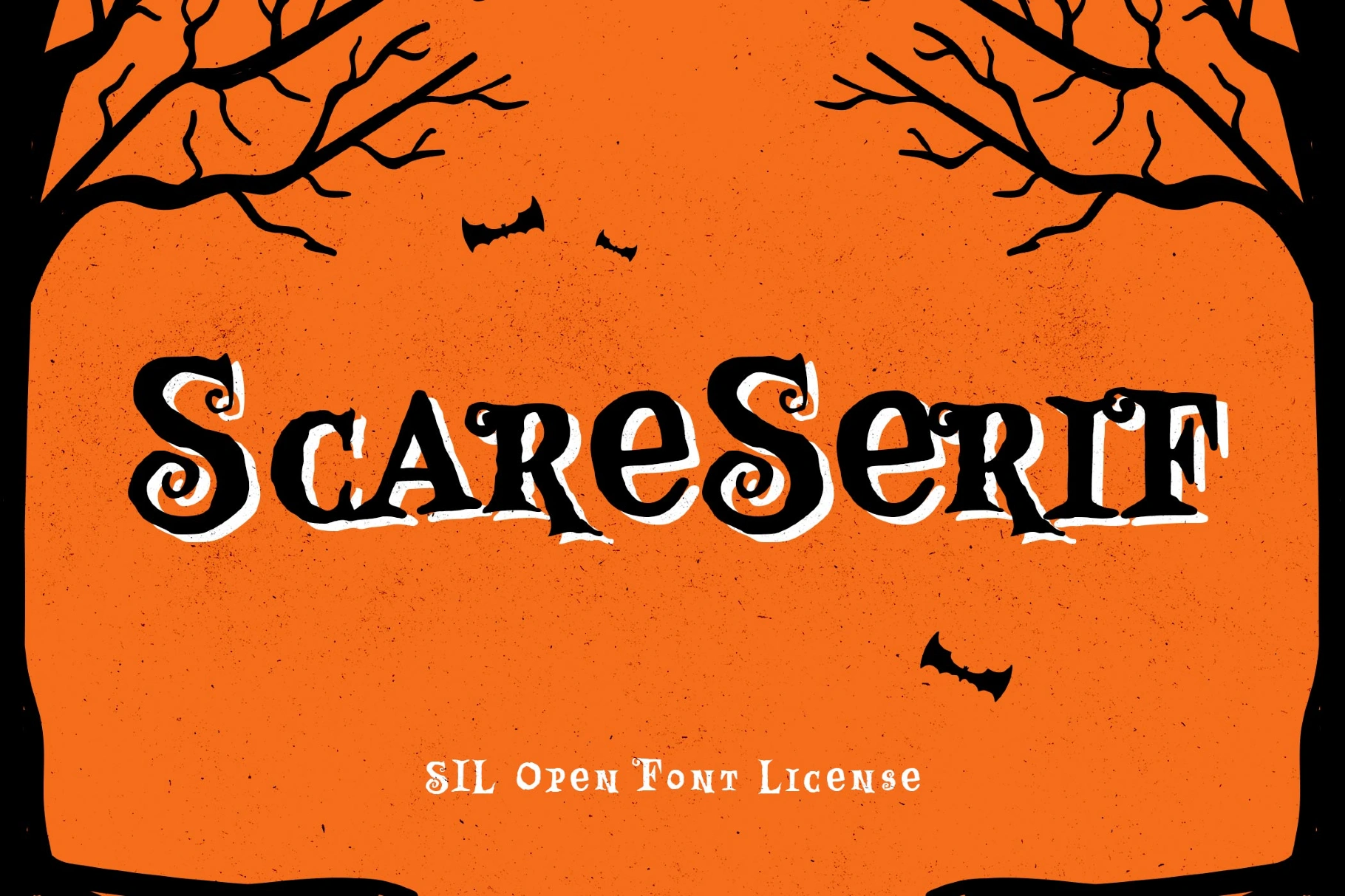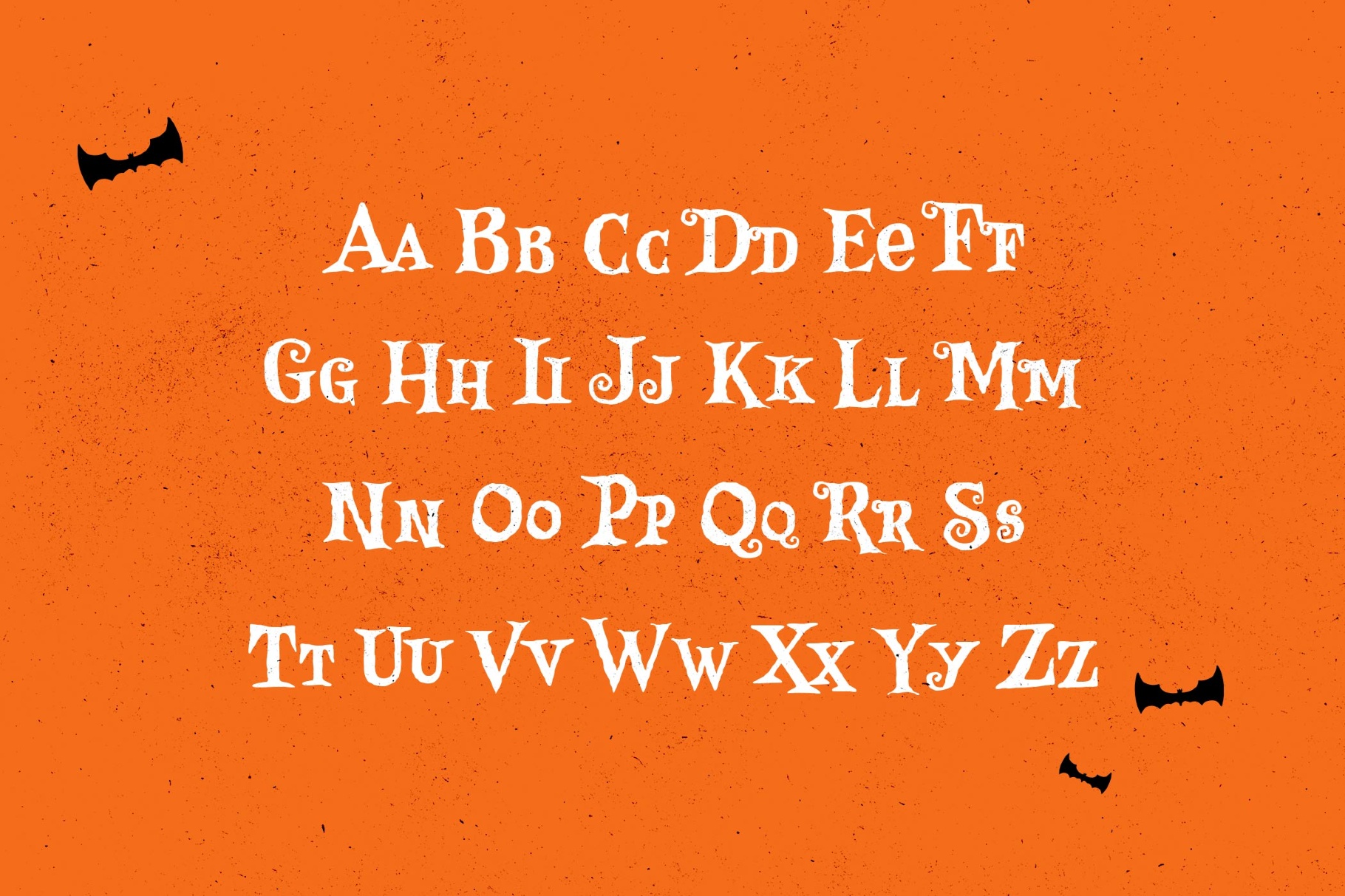
Scare Serif Font
ScareSerif
This creepy font plays on the contrast between classic serif structure and deliberately exaggerated details. The letterforms are off-balance, with stretched serifs and irregular lines, as if it's been subtly distorted over time. Scare Serif brings a more atmospheric, less aggressive kind of horror into the layout. Instead of sharp chaos, it builds tension through small imperfections and vintage references, making it a strong fit for themed graphics, eerie branding, and posters.